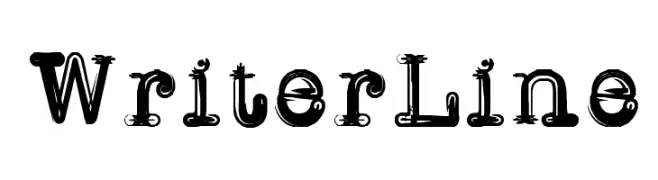
( Canale Studio, Inc. - Thomas Canale )
A decorative font with ornate swirls and embellishments for a whimsical look.
( Thomas Breure - www.thomasbreure.com )
A bold, geometric font with a modern and impactful design.
( Thomas Breure - www.thomasbreure.com )
A modern, geometric font with parallel line construction for a rhythmic and balanced appearance.
( Thomas Breure - www.thomasbreure.com )
A bold, geometric font with sharp edges and a modern aesthetic.
( Thumaszz - Thomas Versteeg - OreadGames.com )
A pixelated, retro-style font with a digital, arcade-like appearance.
( Thumaszz - Thomas Versteeg - OreadGames.com )
A pixelated, retro-style font with a nostalgic digital aesthetic.
( tijuak )
A bold, geometric font with rounded edges and a playful, modern style.
( House of Eraser - hem.passagen.se/duggregn/fonts.html )
A playful, bold font with rounded, cartoonish characters.
( House of Eraser - hem.passagen.se/duggregn/fonts.html )
A playful, bold font with rounded, cartoon-like characters and whimsical pig faces.
( House of Eraser - hem.passagen.se/duggregn/fonts.html )
A bold, rugged font with a hand-cut, energetic style.